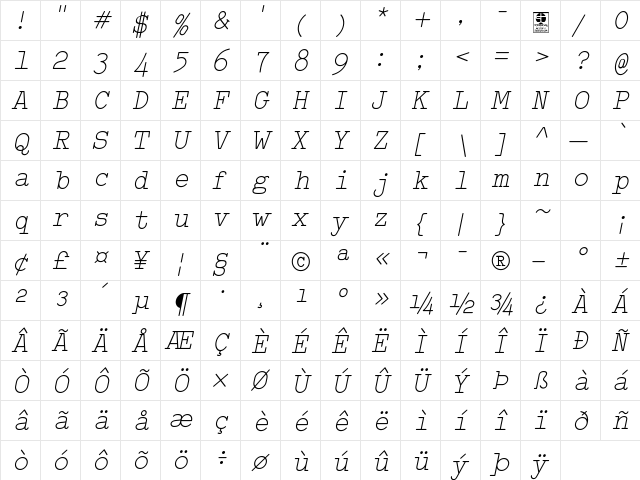
Typo Writer Light Demo Italic
Design Context for Typo Writer Light Demo Typeface
Typo Writer Light Demo is a composed and adaptable typeface that performs quietly and consistently across a wide range of design contexts. Its italic angle brings a sense of urgency and motion to the letterforms. Its slender proportions lend an understated elegance to any composition.
Pro Tip: Use Typo Writer Light Demo for emphasis, pull quotes, and subheadings where its slanted energy can add rhythm to the layout.